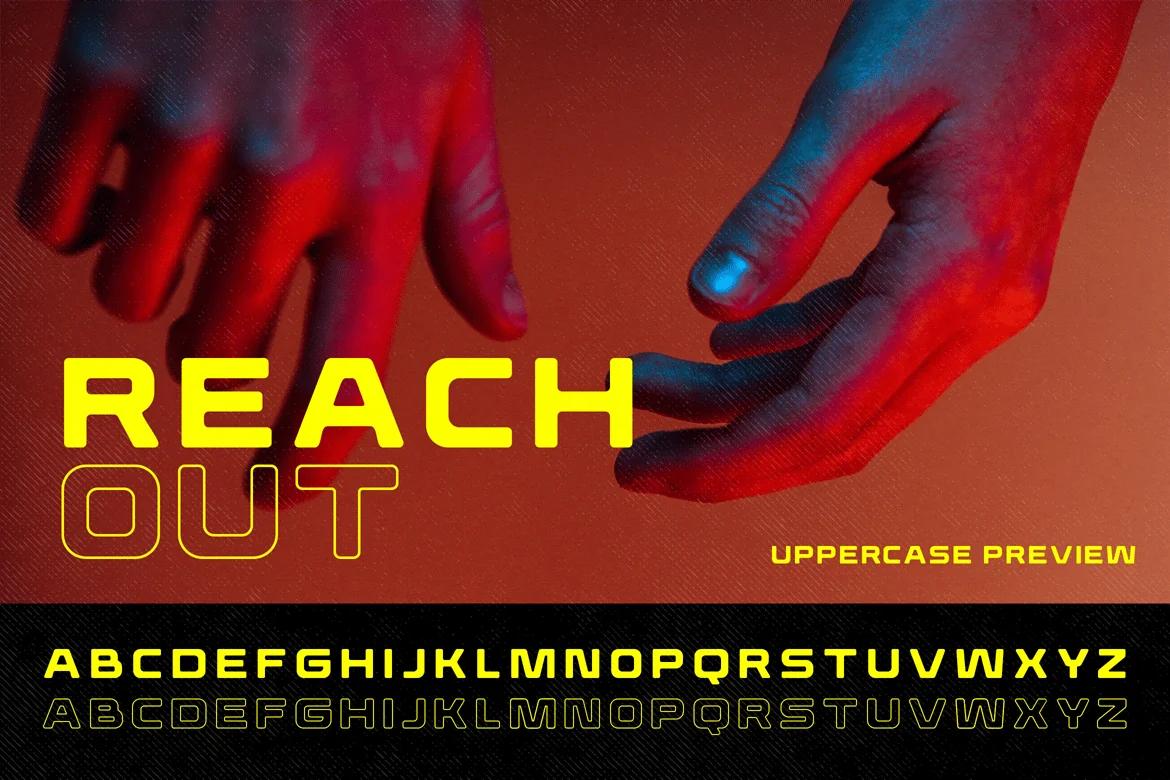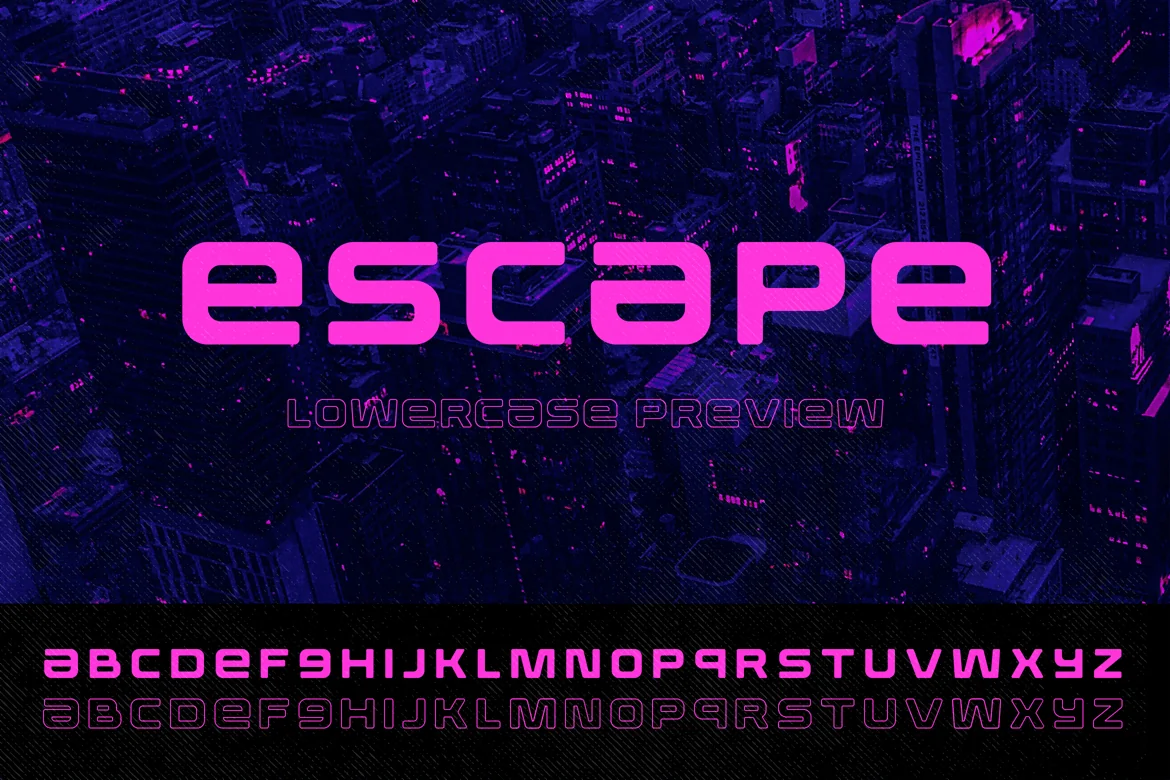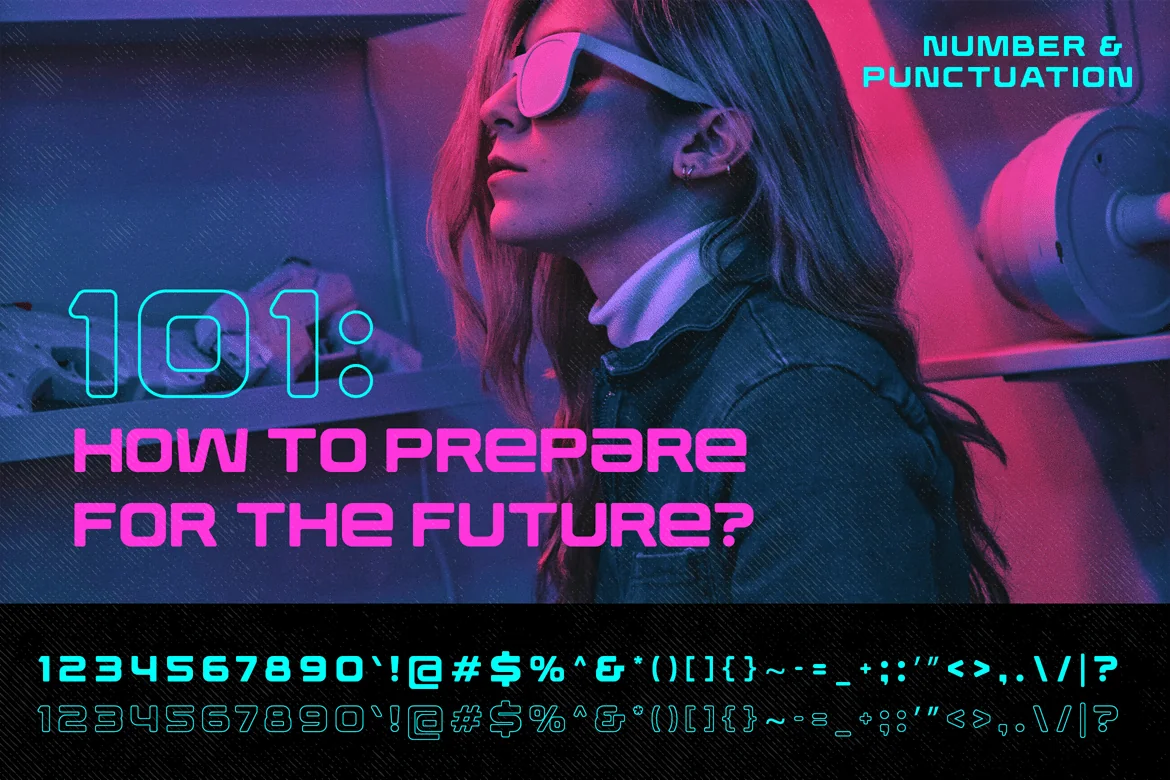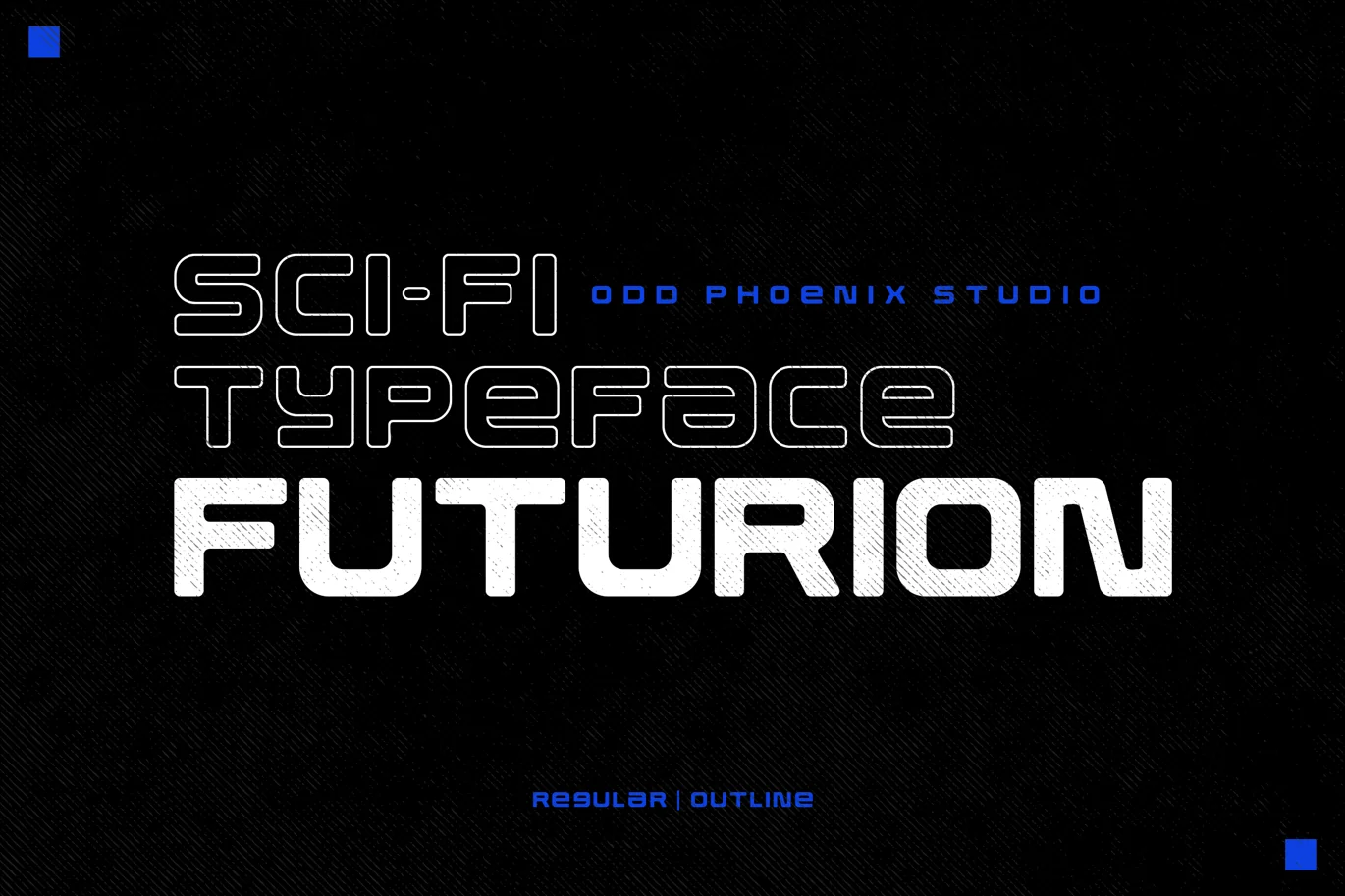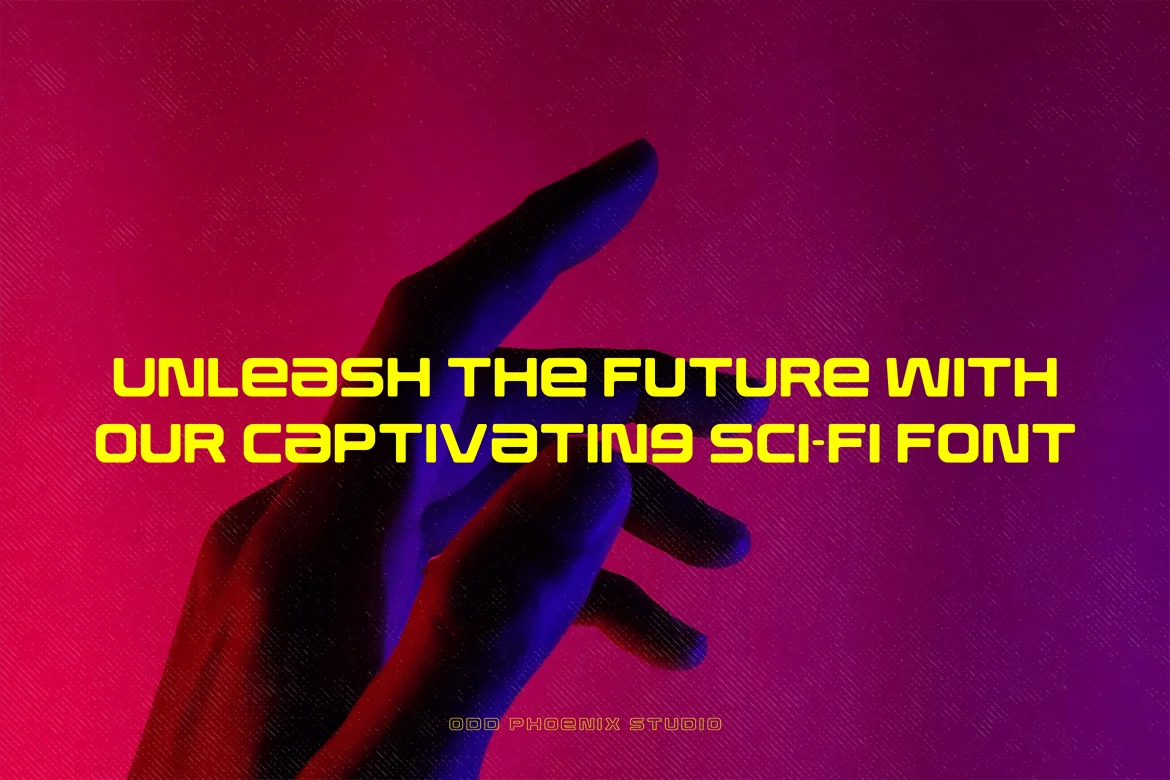
Futurion – Futuristic Sci-Fi Typeface
Futurion, experience the perfect balance of innovation and distinction with our dynamic sci-fi font duo (regular and outline), ideal for futuristic designs.